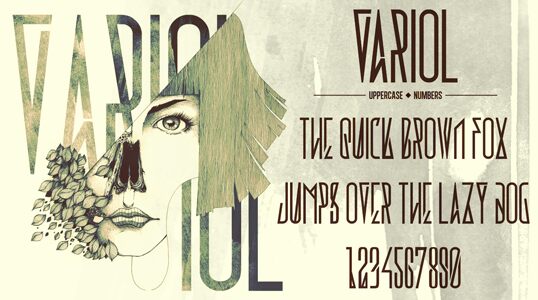
Variol by Ezza Zebra is a free modern Gothic display font with an exceptionally narrow, towering profile. Its strokes shift between long straight lines and abrupt wedges, with sharp cuts giving the letters a tense geometric structure. The silhouettes are severe and theatrical.
Modern Gothic styling makes it a convincing fit for experimental music posters, fashion branding, and stark magazine covers. In game title cards and horror event graphics, the compressed width and blade-like details can suggest futuristic architecture as readily as dark ritual imagery.
Variol is a font by Ezza Zebra, designed by Adhreza in 2012.